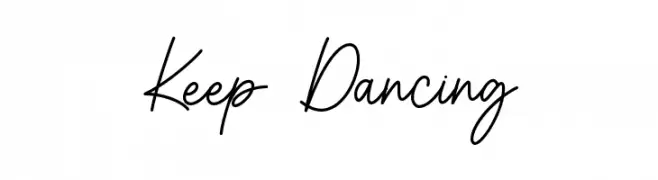
• Kasting Script
A lively, cursive font with fluid, interconnected letters and a playful elegance.
• Katagami Signature
A cursive, handwritten font with elegant, flowing strokes and a sophisticated style.
• Katahdin Round
A bold, rounded sans-serif font with smooth curves and uniform stroke width.
• Kate Raymond Demo Monoline
A playful, monoline font with a hand-drawn, casual style.
• Katherina
A bold, modern font with rounded edges and a sleek, condensed style.
• Kathreen Smith Demo
A whimsical, flowing handwritten font with elegant, interconnected strokes.
• Kau_bubbly Regular
A playful, bubbly font with rounded, hand-drawn characters.
• Kaushan Script
A lively, handwritten script font with fluid curves and dynamic strokes.
• KaushanScript-Regular
A dynamic script font with fluid strokes and a casual elegance.
• Kavoon-Regular
A bold, playful font with rounded edges and whimsical curls.
• Kawaguchi Demo Bold Italic
A bold, italicized font with a modern, angular design.
• Kawaguchi Demo Italic
A dynamic italic font with sharp, angular lines and a modern aesthetic.
• Kawaii Bubble Regular
A playful, rounded font with bold, uniform characters ideal for fun and whimsical designs.
• Kayalla
A playful, handwritten script font with rounded, dynamic characters.
• Kayana
A playful and dynamic script font with fluid, connected letterforms.
• Kayla Story
A bold, playful handwritten font with smooth curves and a lively appearance.
• Kaylafiz
A playful, rounded, and handwritten-style font with a friendly and informal appearance.
• Kaylari
A refined script font with elegant, flowing cursive strokes.
• Kaylari Swashes
Elegant swashes with flowing, artistic strokes.
• KD Algae Brush Regular